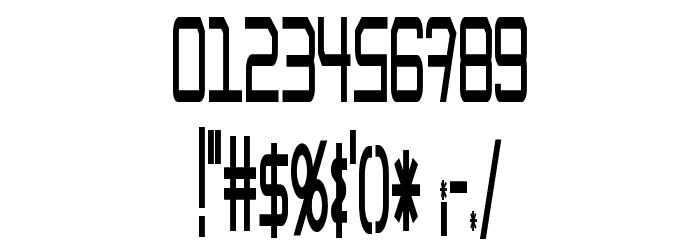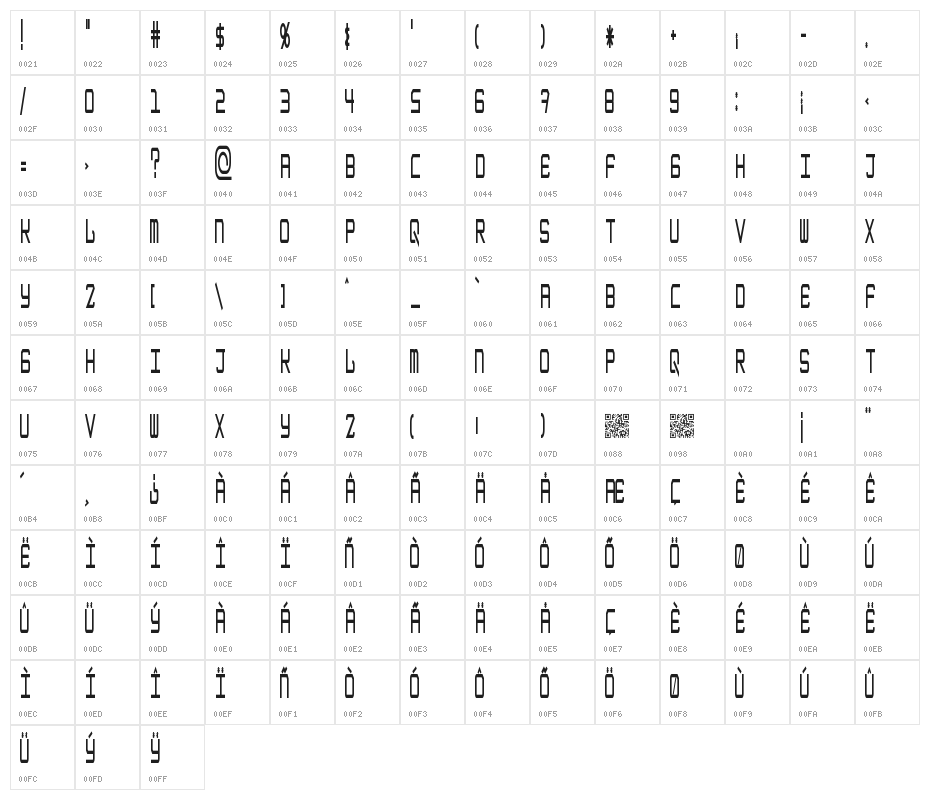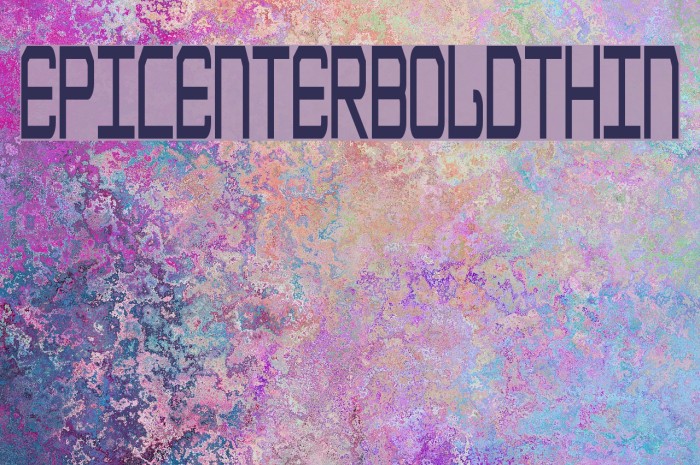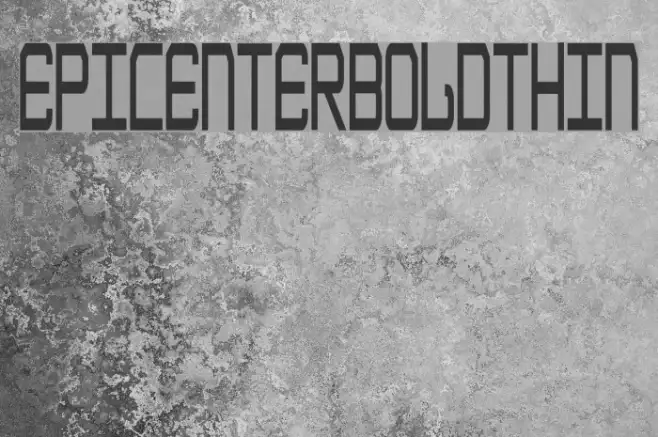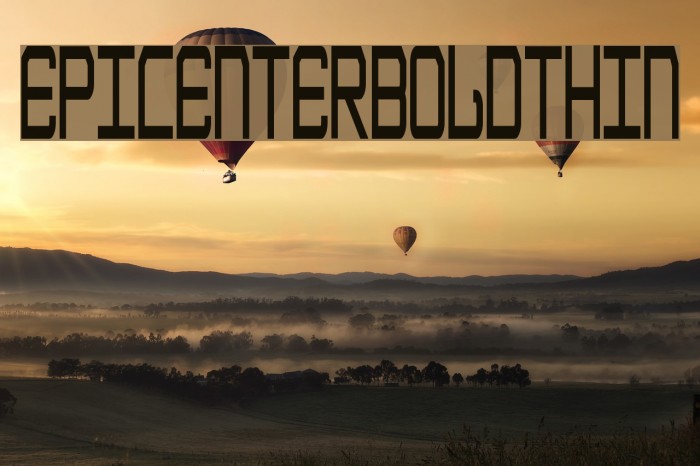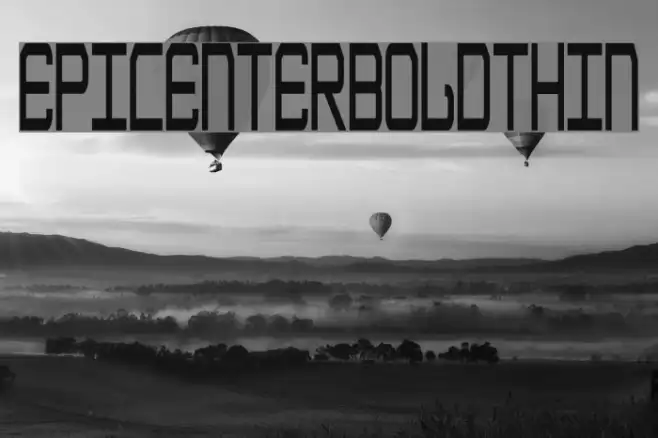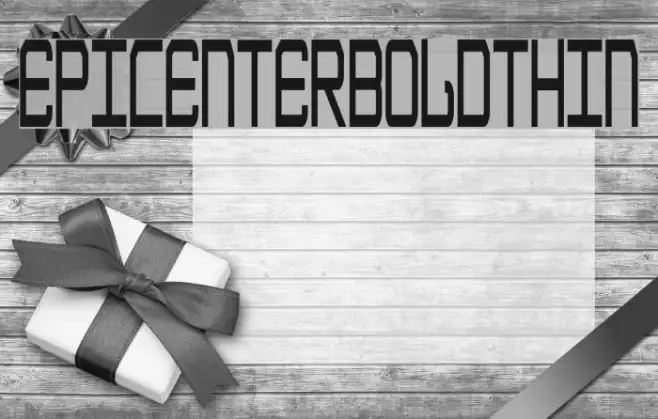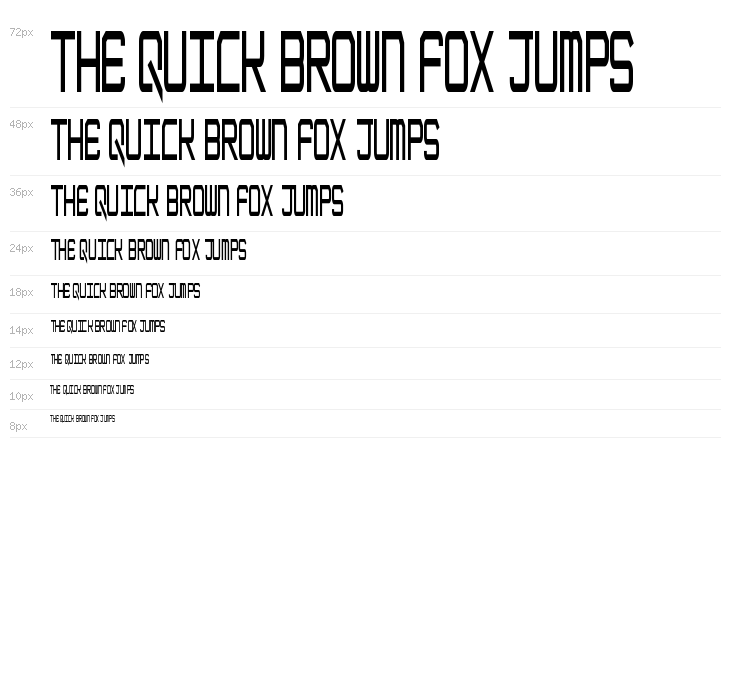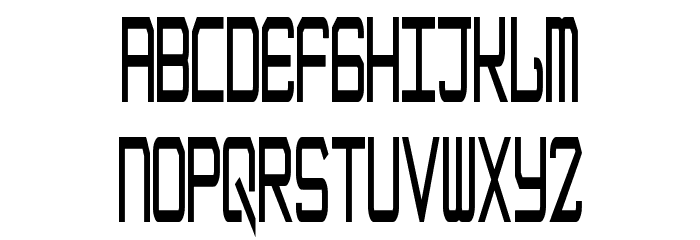
EpicenterBoldThin Font
EpicenterBoldThin Description
This font features a bold and geometric design with a modern and futuristic appeal. The characters are constructed with straight lines and sharp angles, giving it a structured and mechanical look. The uppercase and lowercase letters maintain a consistent height, creating a uniform appearance across the text. The numerals and special characters follow the same design principles, ensuring a cohesive style throughout. The font's clean and precise lines make it suitable for digital and print media, where clarity and impact are essential.
| Overall Style | Futuristic, Structured |
| Proposed Projects | Ideal for technology branding, futuristic posters, digital interfaces, and video game titles. |